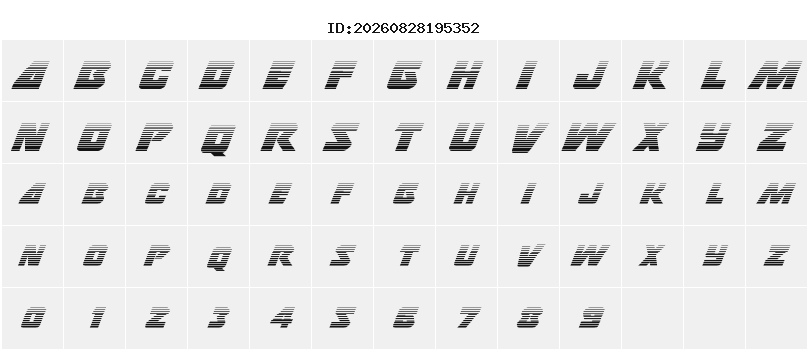
• Font Name: Thunderstrike Gradient
• Full Font Name: Thunderstrike Gradient
Thunderstrike Gradient.ttf is a modern, elegant sans-serif font designed for ultimate readability and visual harmony. Perfect for branding, headlines, web design, and print materials.